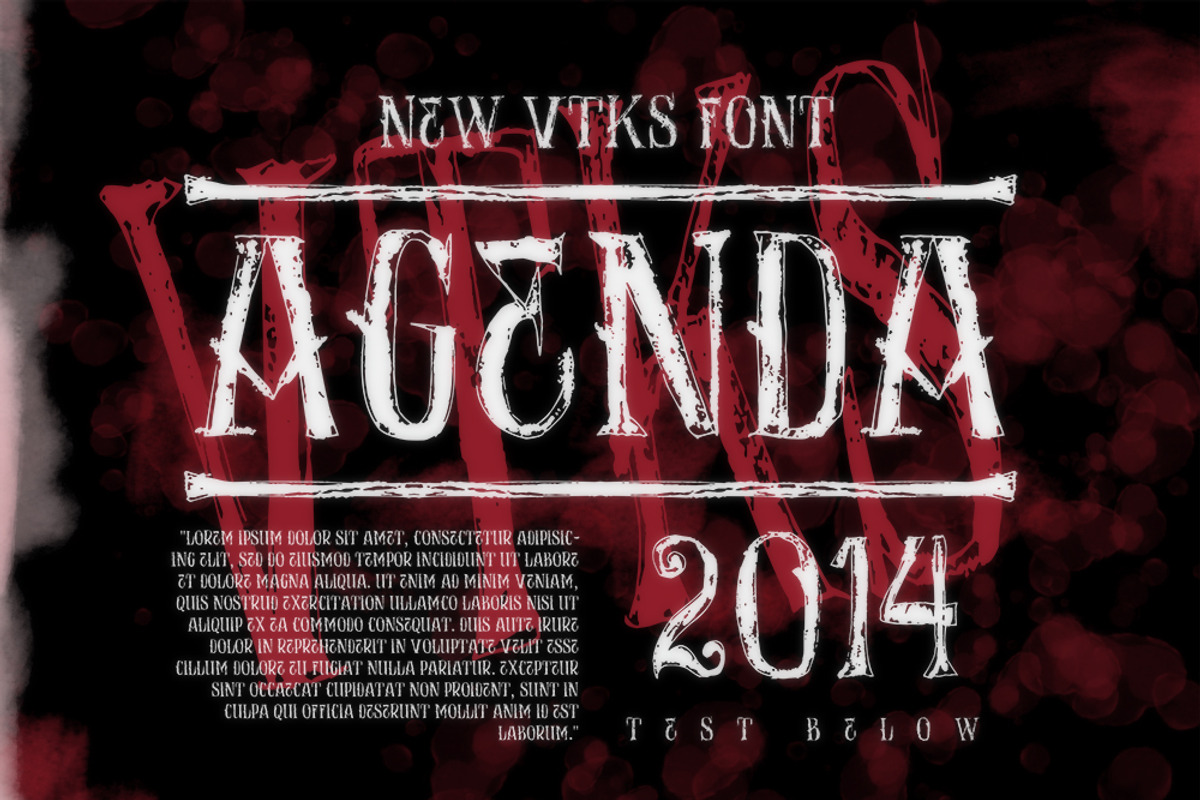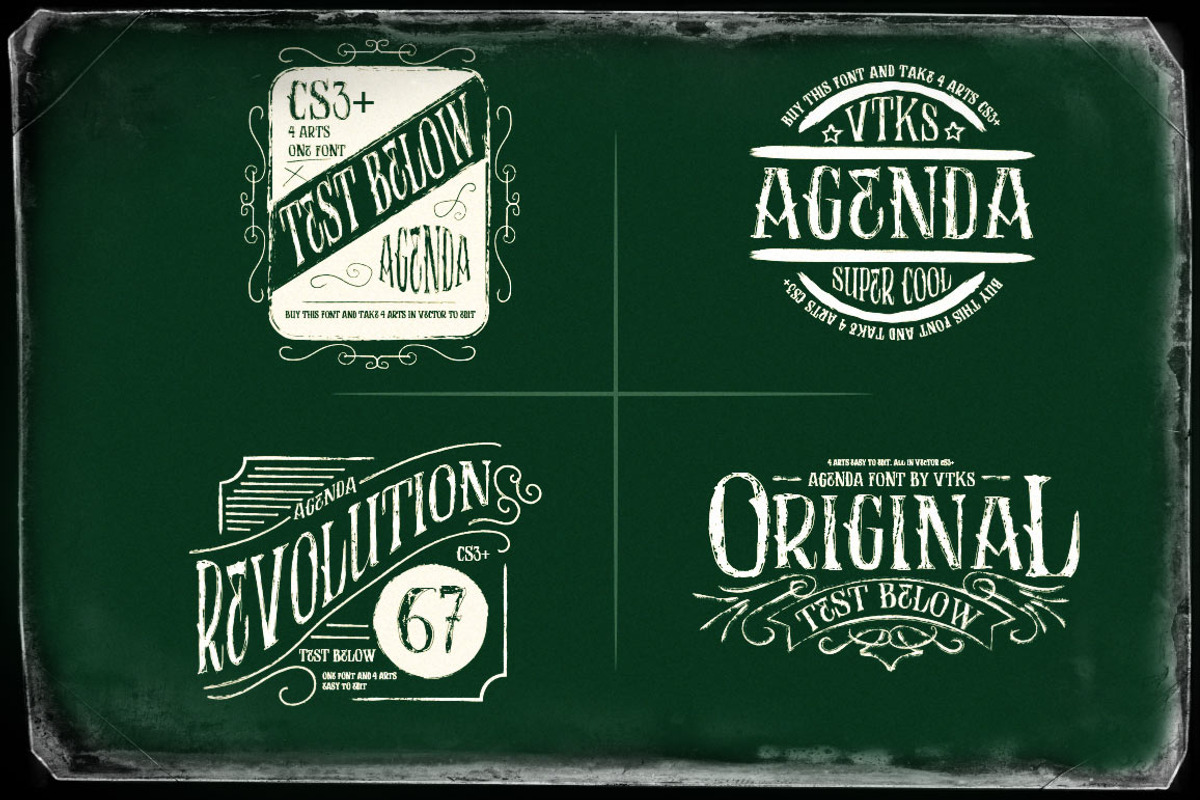
AGENDA font+ 4arts (cs3+)
AGENDA font+ 4arts (cs3+) by vtks design is a font selected for branding, posters, packaging, typography.
Why AGENDA font+ 4arts (cs3+) is worth a look
AGENDA font+ 4arts (cs3+) by vtks design fits naturally into Branding, posters, packaging, typography.